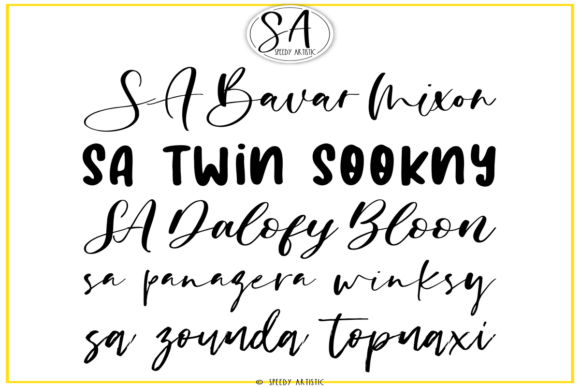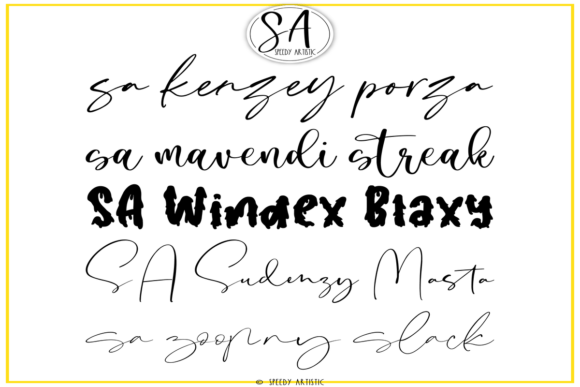
Introduction to Script and Handwritten Bundle 10 Font
Have you ever found yourself in the midst of a creative project, struggling to find the perfect font to bring your vision to life? The frustration of scrolling through countless design resources, only to settle for something that’s just ‘good enough,’ is all too familiar for many designers. But what if you had a treasure trove of high-quality, unique fonts at your fingertips? Enter the Script and Handwritten Bundle 10 Font, a game-changing collection of 10 True-Type script fonts that will elevate your designs to new heights.
This bundle is a design lover’s dream come true, offering a transparent background and a free download for instant access to a world of creative possibilities. Whether you’re a seasoned pro or just starting out, the Script and Handwritten Bundle 10 Font is an invaluable resource that will help you create something truly spectacular. With its high-quality fonts, you’ll be able to breathe new life into your projects and take your designs to the next level.
Key Features of Script and Handwritten Bundle 10 Font
- Unique Handwritten and Script Font Styles: This bundle includes 10 high-quality fonts with distinct characteristics, perfect for adding a personal touch to your creative project.
- High-Quality Design Resource: Each font is carefully crafted with a high level of detail, ensuring a professional and elegant look for your design.
- Perfect for Creative Projects: The Script and Handwritten Bundle 10 Font is ideal for use in wedding invitations, branding, packaging, and any other creative project that requires a touch of elegance and sophistication.
Honest Review: Script and Handwritten Bundle 10 Font
I recently had the chance to work with the Script and Handwritten Bundle 10 Font, and I must say it’s been a game-changer for my creative projects. With its beautiful, high-quality designs, it’s perfect for adding a personal touch to any project.
What works well: ✨ The bundle includes 10 unique fonts, each with its own distinct style and feel. I loved the flexibility it offered in terms of design options. The transparent background feature also made it easy to integrate the fonts into my existing designs. Plus, it’s available as a free download, making it a fantastic design resource.
What doesn’t work so well: ⚠️ While the fonts are high quality, I did find that some of them were a bit too ornate for my taste. Additionally, the bundle could benefit from more variations in terms of font weights and sizes.
Overall, I’m thoroughly impressed with the Script and Handwritten Bundle 10 Font. It’s a fantastic addition to any designer’s toolkit, and I wouldn’t hesitate to recommend it to colleagues and friends.
- High-quality, unique designs
- 10 font options to choose from
- Great design resource for creative projects